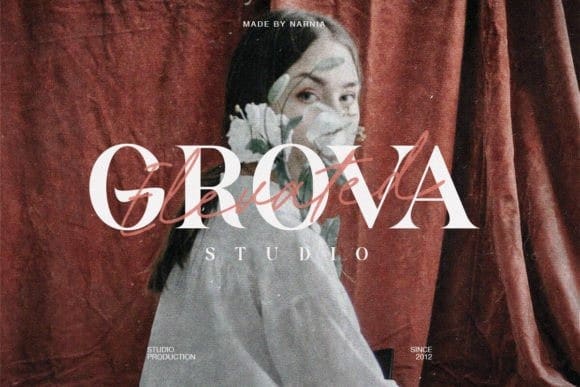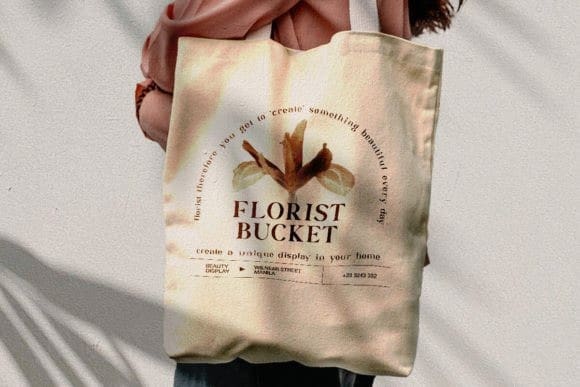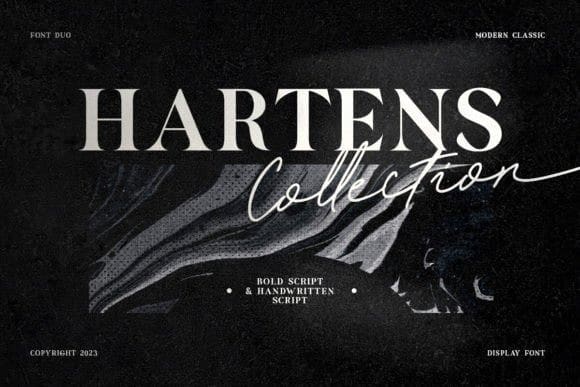
Hartens Font Duo
Hartens Font Duo, is a font duo that contains bold serif and handwritten script. You can use this font for any purpose, such as branding, or logo, and suitable for wedding invitations. You don’t have to worry to mix and match your font collections, this combination is ready to use.